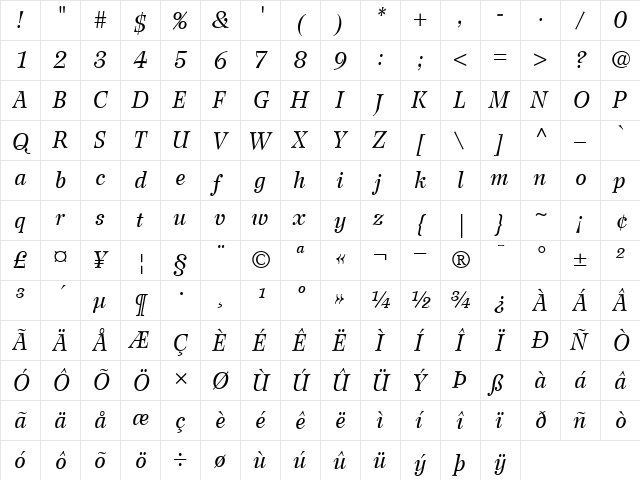
Wilke56 RomanItalic
Design Context for Wilke56 Typeface
Wilke56 offers clean, dependable letterforms without strong stylistic allegiance, making it a practical choice for designers who need flexibility. The slanted form adds forward momentum and visual energy.
Pro Tip: Try Wilke56 for annotation and caption copy alongside an upright companion — the contrast in angle creates a dynamic but ordered typographic system.